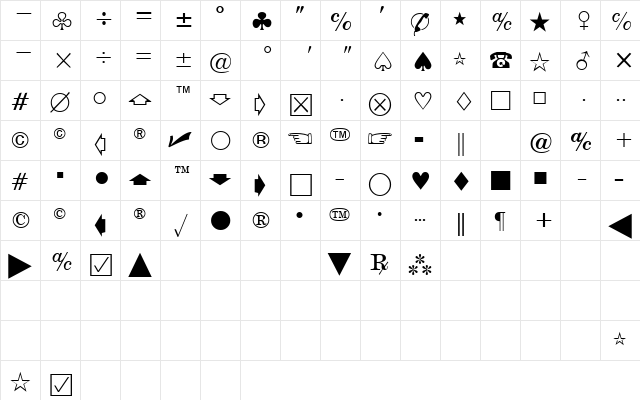
EisagoNewsSSK Regular Font Preview
EisagoNewsSSK Regular
Design Context for EisagoNewsSSK Typeface
EisagoNewsSSK offers clean, dependable letterforms without strong stylistic allegiance, making it a practical choice for designers who need flexibility.